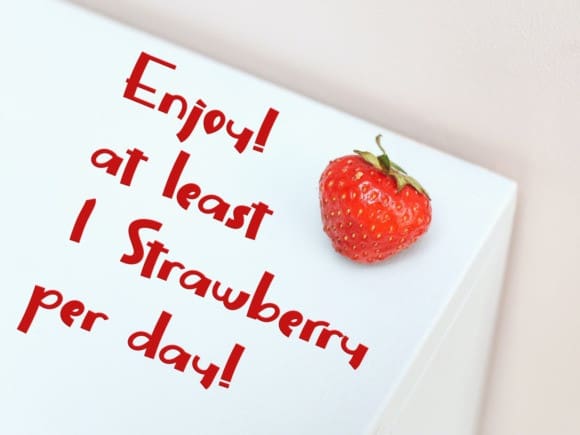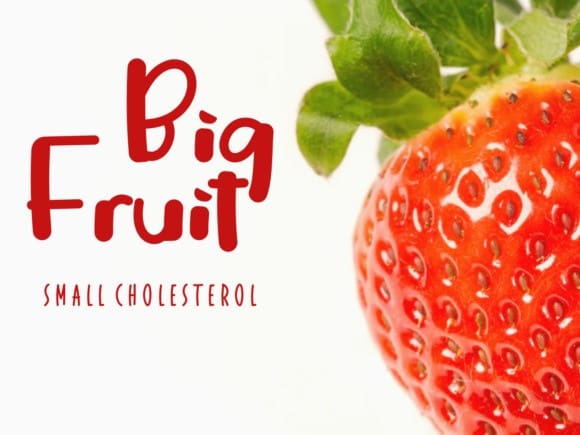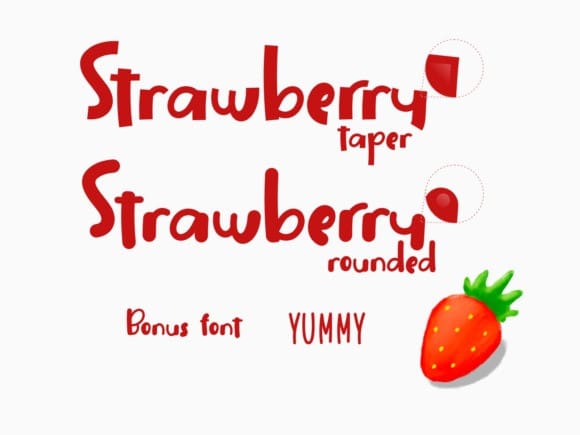
Strawberry Playful Font
Strawberry Playful Font is a cute display and handwritten duo font with a casual and cute look. Clean and a little quirky, this font is perfect for all your logo, branding, social media, and crafty DIY projects.